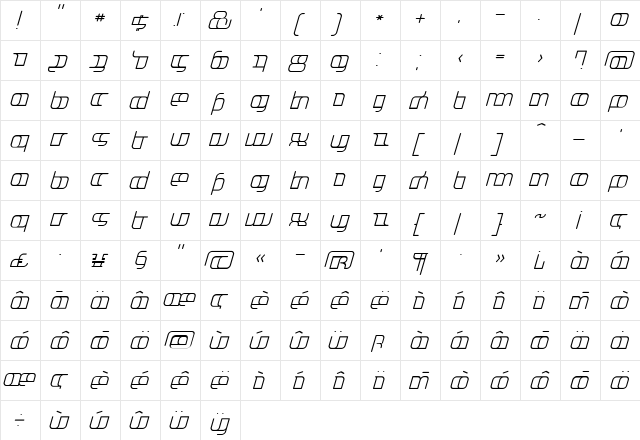
Jakone Italic Font Preview
Jakone Italic
Jakone Italic Font Details
Design Context for Jakone Typeface
Jakone offers clean, dependable letterforms without strong stylistic allegiance, making it a practical choice for designers who need flexibility. Its italic angle brings a sense of urgency and motion to the letterforms.
Pro Tip: Use Jakone for emphasis, pull quotes, and subheadings where its slanted energy can add rhythm to the layout.